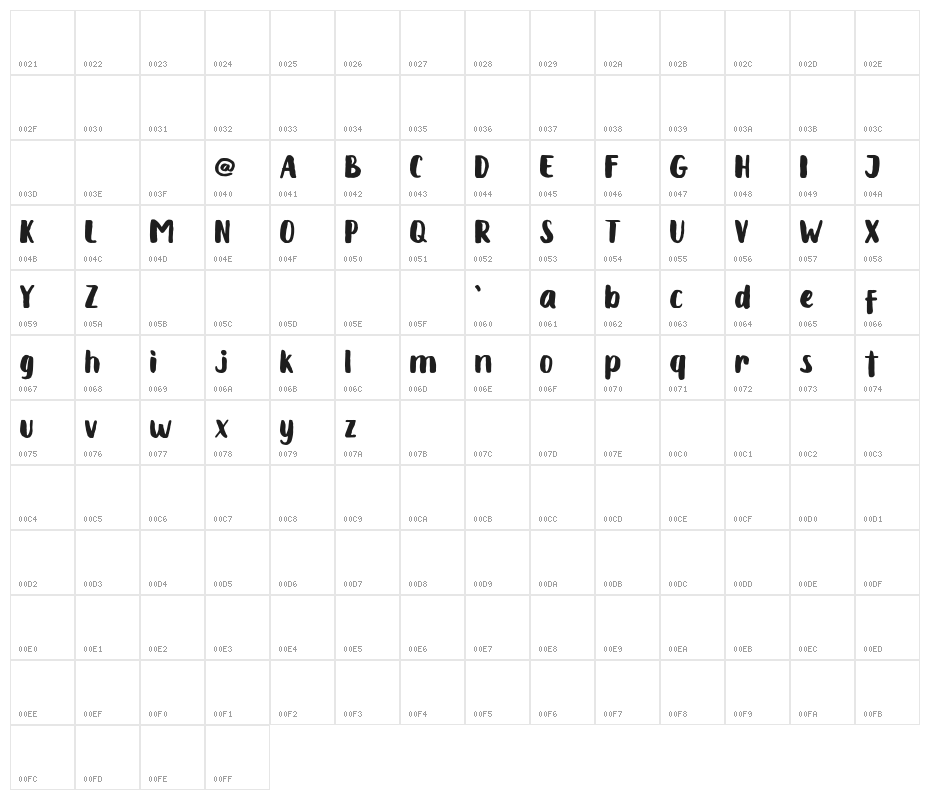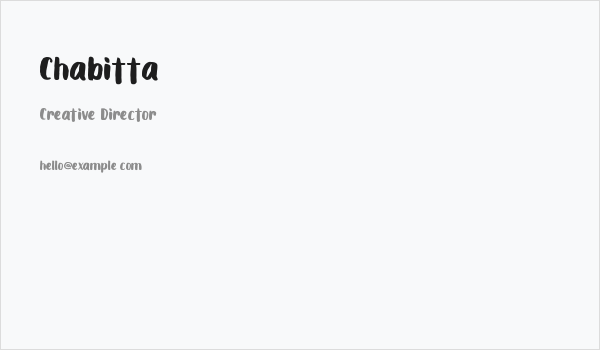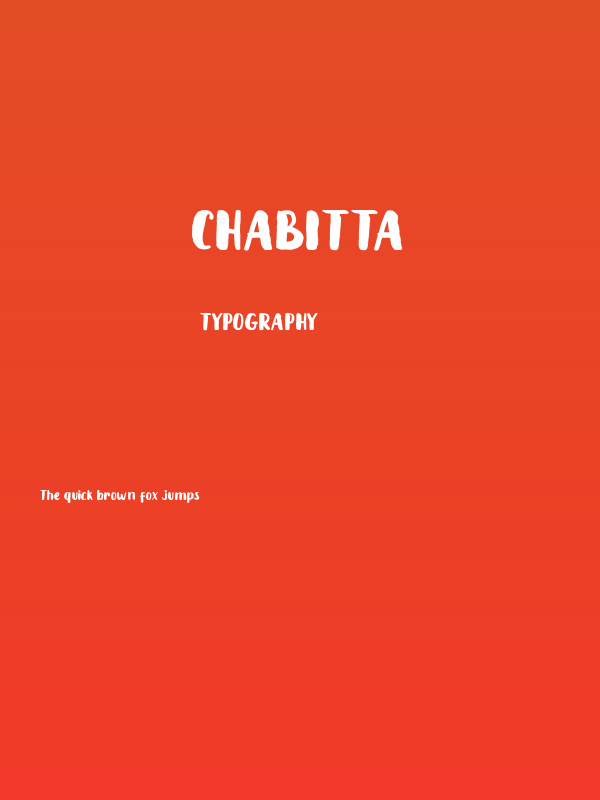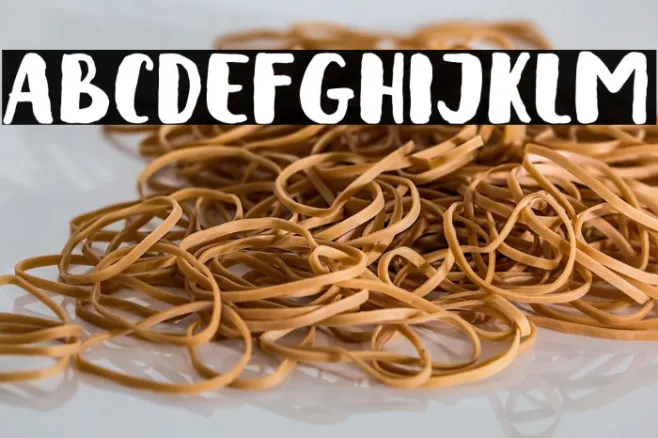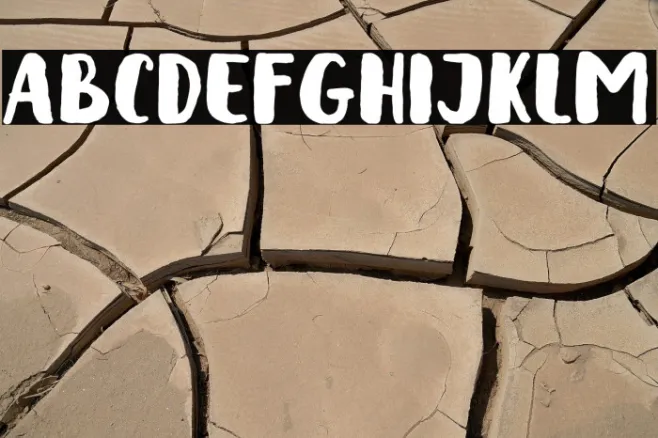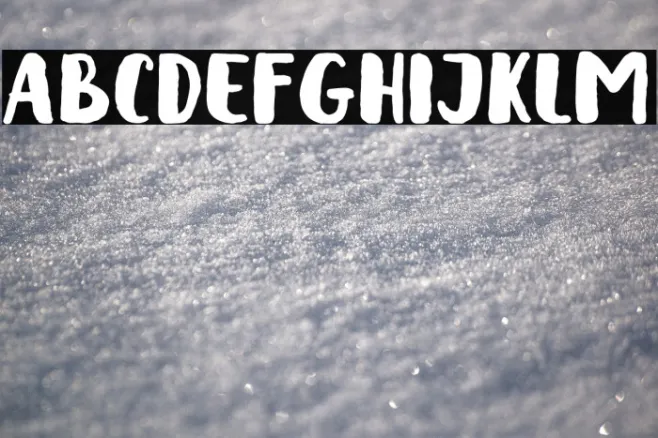
Chabitta Font
Chabitta Description
This font features a bold, hand-drawn style with a playful and organic feel. The letters have a slightly irregular shape, giving them a casual and approachable appearance. The strokes are thick and consistent, with rounded edges that enhance the friendly vibe. The uppercase and lowercase letters maintain a cohesive look, while the numbers and special characters blend seamlessly with the overall design. This font is perfect for projects that require a touch of whimsy and creativity, making it ideal for children's books, playful branding, or artistic posters.
| Overall Style | Playful, Organic |
| Proposed Projects | Children's books, playful branding, artistic posters, casual invitations. |